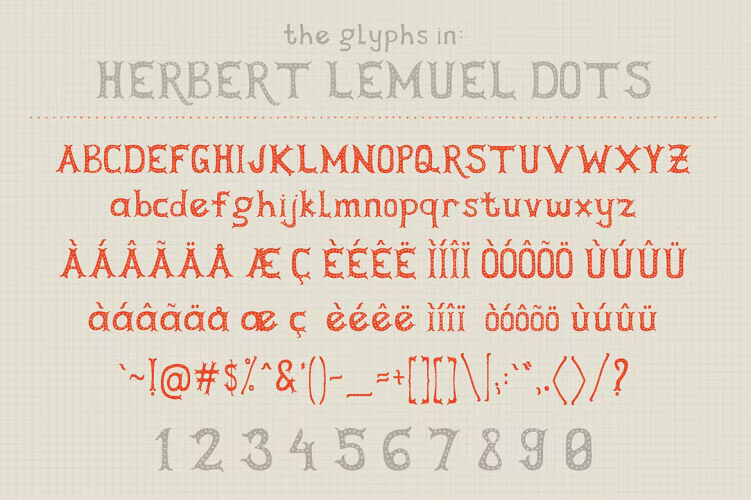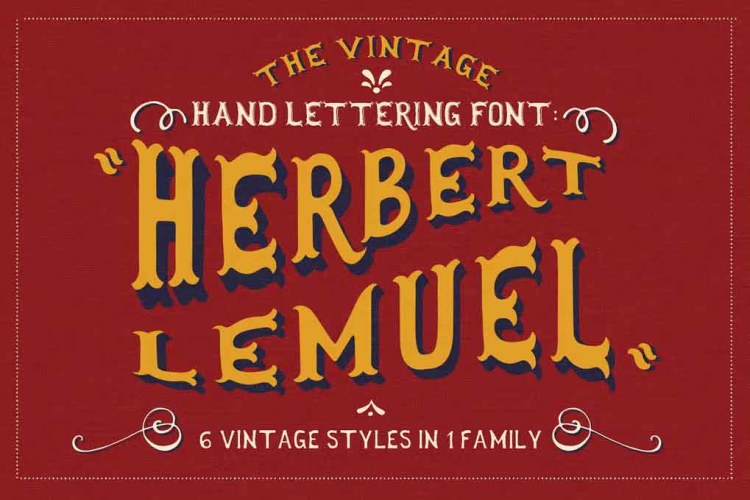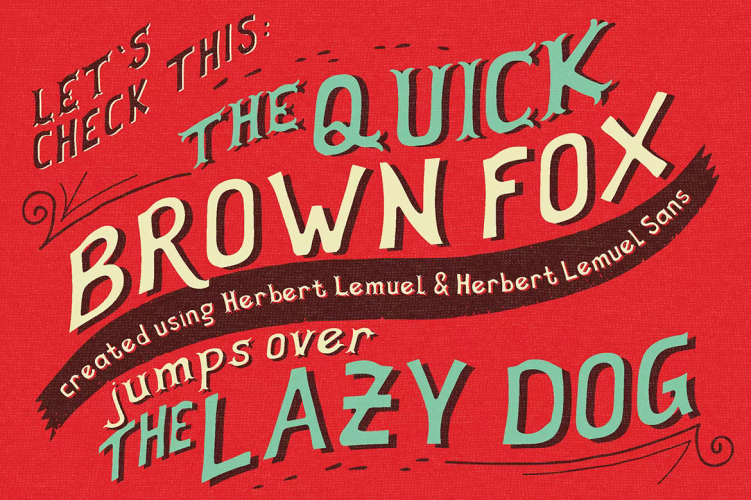
Herbert Lemuel Font
Add a vintage style to your design project with Herbert Lemuel font family. There are 6 different vintage styles that you can mix-match, just to have a fun, old school look. You can use the fonts to create wedding cards and invites, greeting card title, signature for design work, logo and return address and so forth, you decide!
Herbert Lemuel Features:
Where Herbert Lemuel Font works best
Herbert Lemuel Font gives long-form text a classic, trustworthy rhythm — ideal for magazine spreads, annual reports and book interiors.
Pair Herbert Lemuel Font with generous letter-spacing for wordmarks in fashion, hospitality, wine and jewellery branding.
Use Herbert Lemuel Font for slide titles in Keynote, PowerPoint or Google Slides to add authority without looking dated.
What is Herbert Lemuel Font good for?
Herbert Lemuel Font is a Serif Fonts typeface tagged Bold, Branding, Herbert, Serif. It works well for headlines, logos, posters, social media graphics and branding projects that need a distinctive serif fonts look.